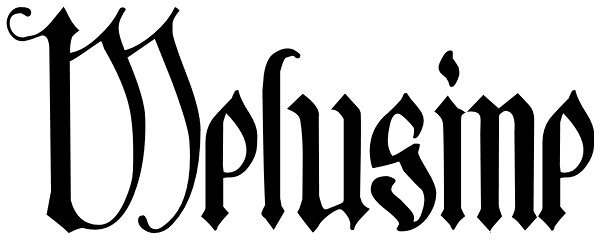
Melusine
Melusine is based on an ornate style of gothic calligraphy used primarily in decorative signs and advertising in Germany around the turn of the century. It has many of the characteristics of a true medieval gothic hand, but is a more elaborate...